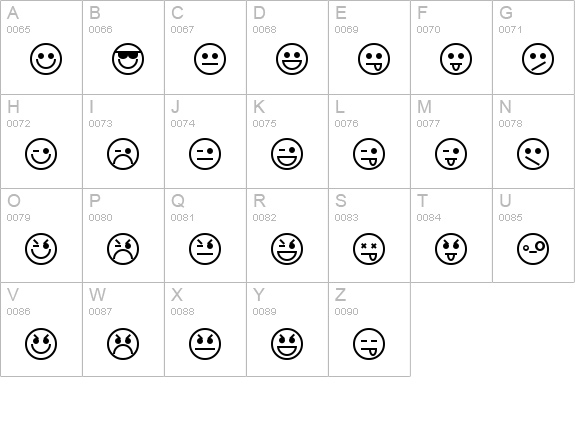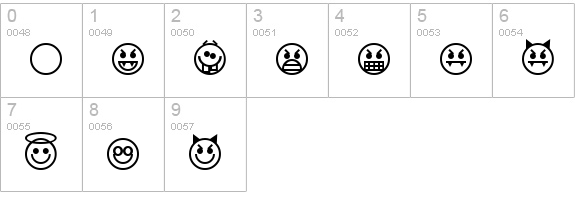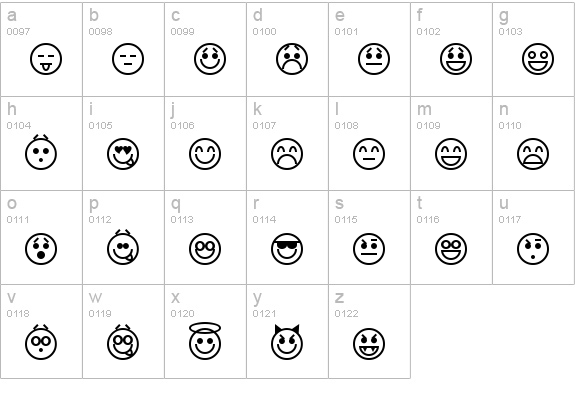
The Emoticons font is a whimsical and playful typeface that will add a touch of fun to your designs. With a wide range of emoticons and smiley faces, this font is perfect for expressing emotions and adding a pop of personality to your projects. Best of all, the Emoticons font is completely free to download at FontsMarket.com. Whether you're looking to add a touch of cheer to your social media posts, messages, or designs, this font is sure to bring a smile to your face. Download the Emoticons font today and let your creativity shine with these expressive characters.